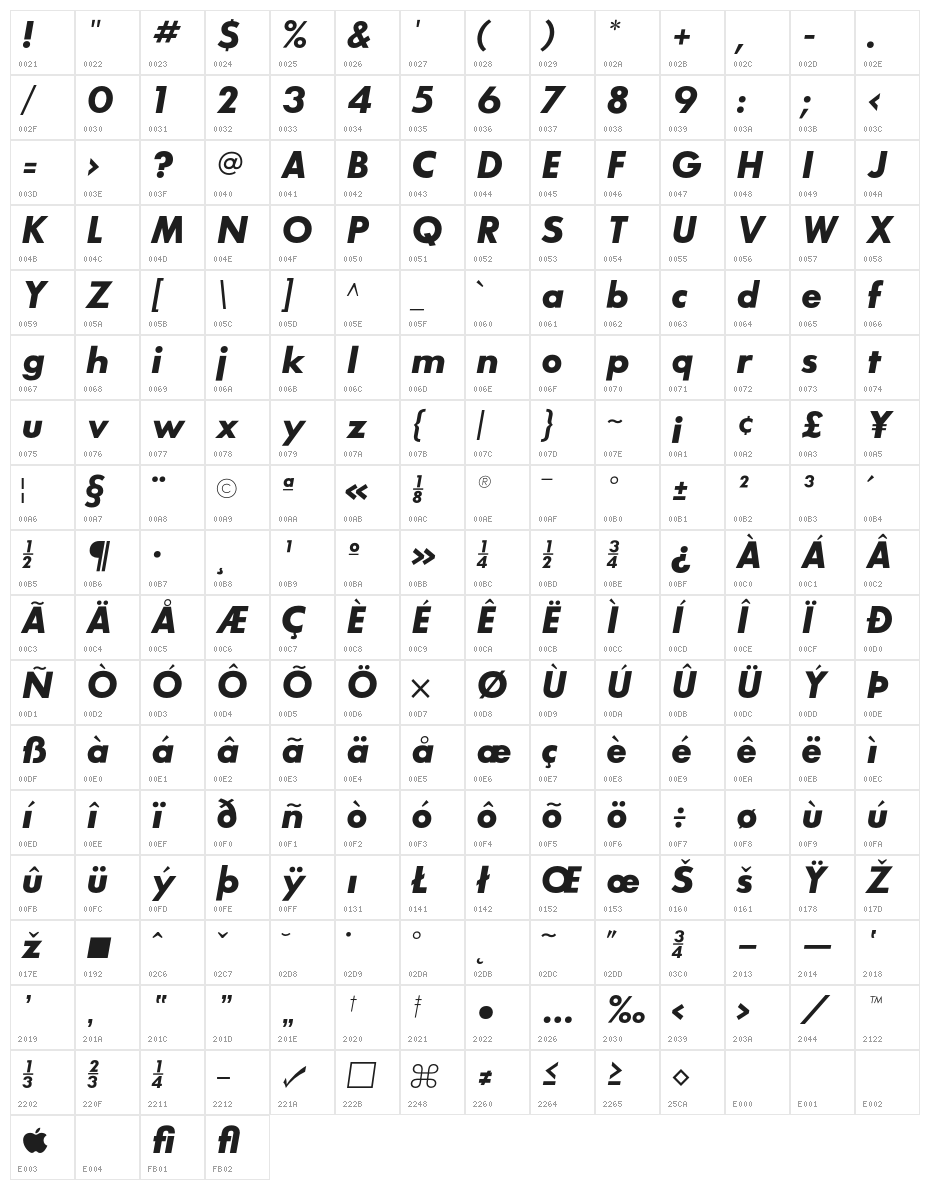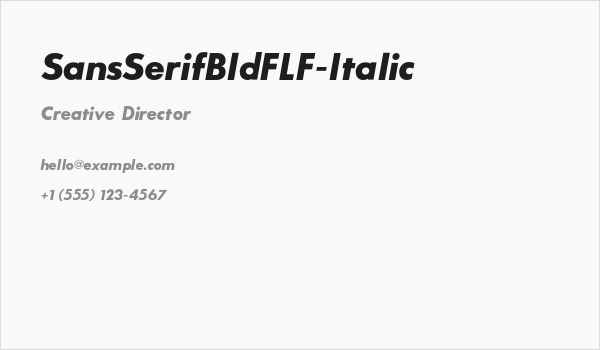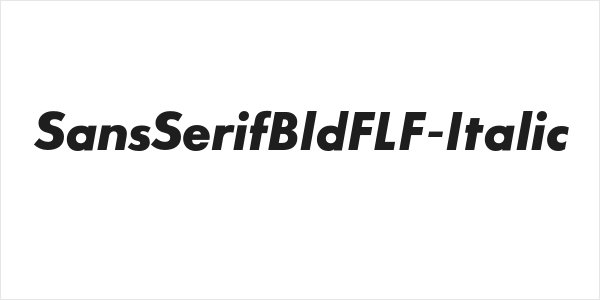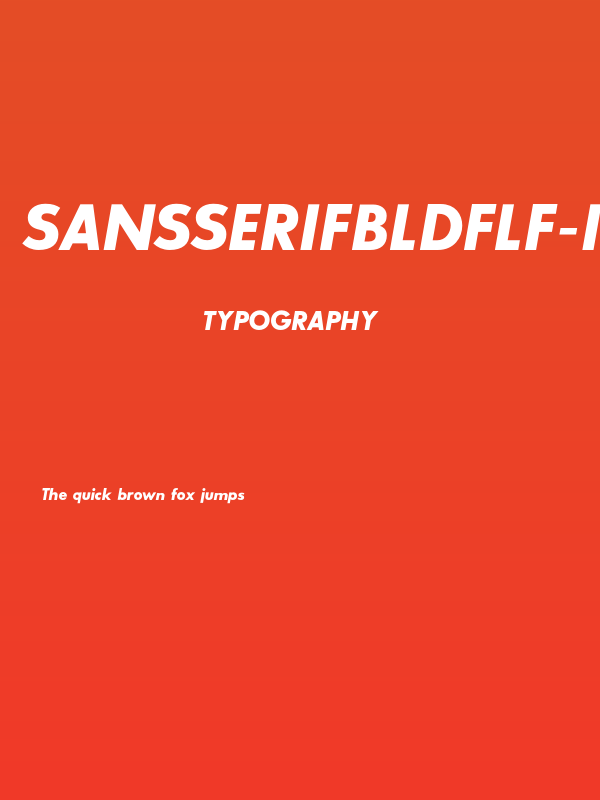
SansSerifBldFLF-Italic Font
SansSerifBldFLF-Italic Description
This font features a bold and italicized sans-serif style, characterized by clean, geometric lines and a modern aesthetic. The uppercase and lowercase letters maintain a consistent weight, providing a strong visual impact. The numerals are clear and easy to read, complementing the overall design. Special characters are well-defined, adding versatility to the font's usage. The italic slant adds a dynamic feel, making it suitable for both contemporary and professional applications.
| Use Case | Headlines, Logos, Advertising |
| Proposed Projects | Ideal for branding, advertising, and editorial design where a modern and bold statement is needed. |